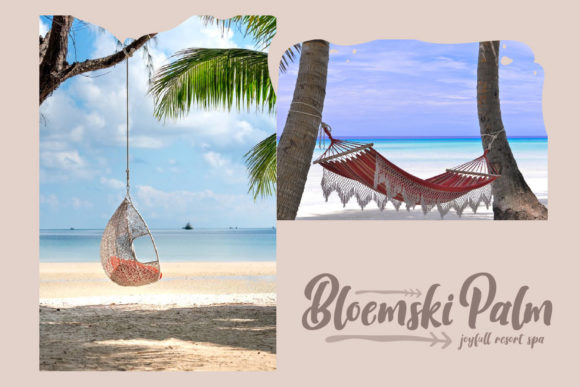
Introducing Cambrigo Script Font: Elevate Your Designs with Elegance
Are you a designer or crafter looking for a font that can add a touch of sophistication and whimsy to your creative projects? Look no further than Cambrigo Script Font. This delicate, elegant, and flowing handwritten font is sure to bring your designs to life. With its beautiful and well-balanced characters, Cambrigo Script matches a wide pool of designs, making it a versatile addition to your font collection.
The Characteristics of Cambrigo Script Font
Cambrigo Script Font boasts a range of characteristics that make it an ideal choice for designers and crafters. Its delicate and elegant strokes evoke a sense of refinement and luxury, while its flowing handwritten style adds a touch of whimsy and playfulness. The font’s well-balanced characters ensure that it remains clear and legible, even at smaller sizes, making it perfect for use in a variety of applications, from digital designs to print materials.
Why Choose Cambrigo Script Font?
So, why should you choose Cambrigo Script Font for your next design project? Here are just a few reasons:
• Versatility: Cambrigo Script Font matches a wide pool of designs, making it a versatile addition to your font collection. Whether you’re working on a branding project, a website design, or a craft project, this font is sure to fit right in.
• Elegance: The delicate and elegant strokes of Cambrigo Script Font add a touch of sophistication to any design. Perfect for projects that require a level of refinement and luxury.
• Legibility: The well-balanced characters of Cambrigo Script Font ensure that it remains clear and legible, even at smaller sizes.
• Uniqueness: With its flowing handwritten style, Cambrigo Script Font adds a touch of whimsy and playfulness to any design, setting it apart from more traditional fonts.
Using Cambrigo Script Font in Your Designs
So, how can you use Cambrigo Script Font in your designs? Here are a few ideas to get you started:
• Branding: Use Cambrigo Script Font as a logo font or as a font for your brand’s marketing materials. Its elegant and refined strokes make it perfect for luxury brands or businesses that want to evoke a sense of sophistication.
• Website Design: Add Cambrigo Script Font to your website design to create a unique and memorable user experience. Its flowing handwritten style makes it perfect for use in headings, titles, and other design elements.
• Crafting: Use Cambrigo Script Font in your craft projects, such as scrapbooking, card making, or journaling. Its delicate and elegant strokes make it perfect for adding a touch of whimsy and personality to your creations.
Tips for Getting the Most Out of Cambrigo Script Font
To get the most out of Cambrigo Script Font, here are a few tips to keep in mind:
• Experiment with different sizes: Cambrigo Script Font looks great at a range of sizes, from small and delicate to large and bold. Experiment with different sizes to find the one that works best for your design.
• Pair it with other fonts: Cambrigo Script Font pairs well with a range of other fonts, from sans serifs to serifs. Experiment with different font combinations to find the one that works best for your design.
• Use it sparingly: While Cambrigo Script Font is beautiful and elegant, it can be overwhelming if used too much. Use it sparingly to add a touch of sophistication and whimsy to your designs.
In conclusion, Cambrigo Script Font is a beautiful and elegant handwritten font that is sure to bring your designs to life. With its delicate and flowing strokes, well-balanced characters, and versatility, it’s the perfect addition to any design project. Whether you’re a designer or crafter, Cambrigo Script Font is a must-have font that will help you create stunning and memorable designs. So why wait? Add Cambrigo Script Font to your font collection today and start creating!